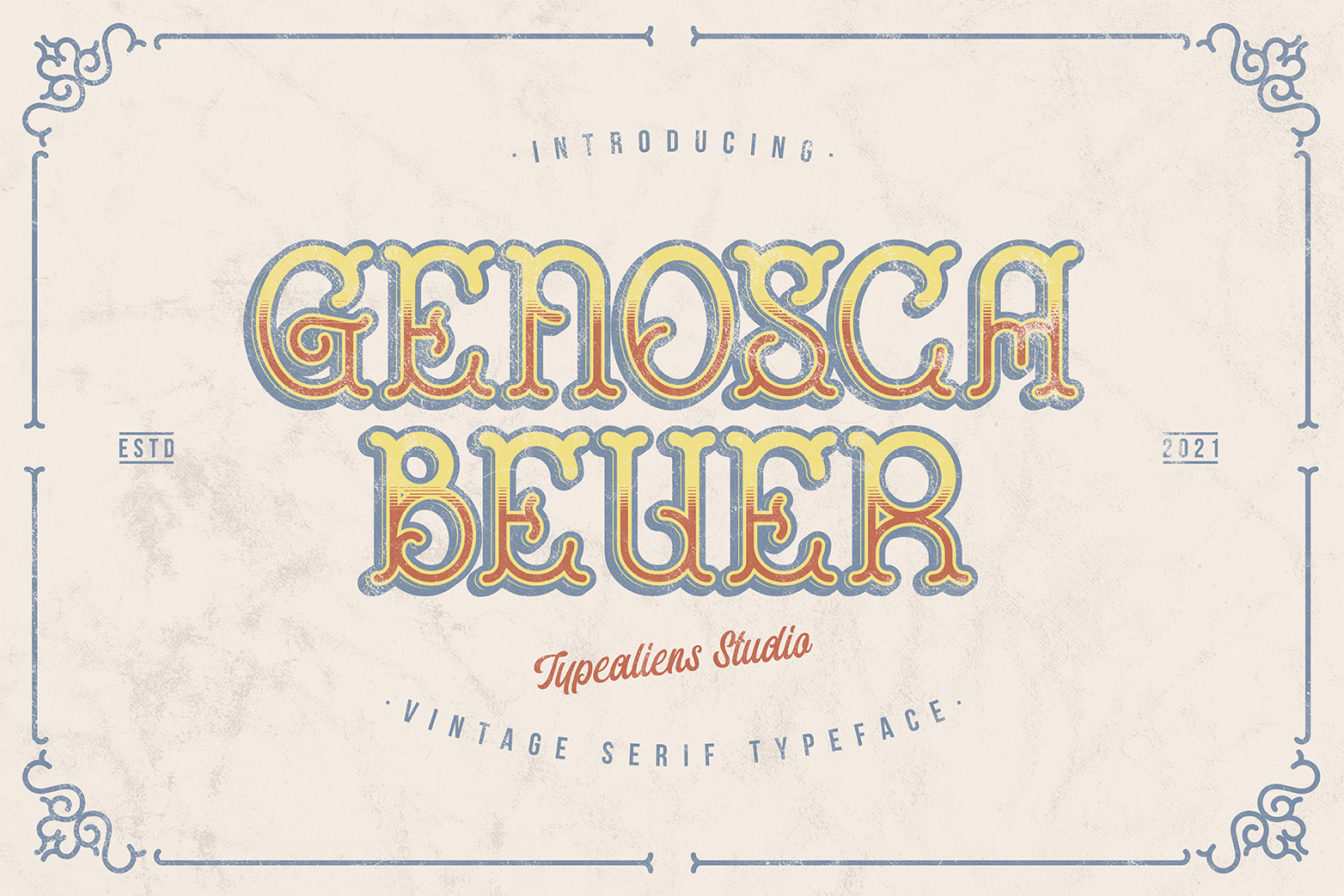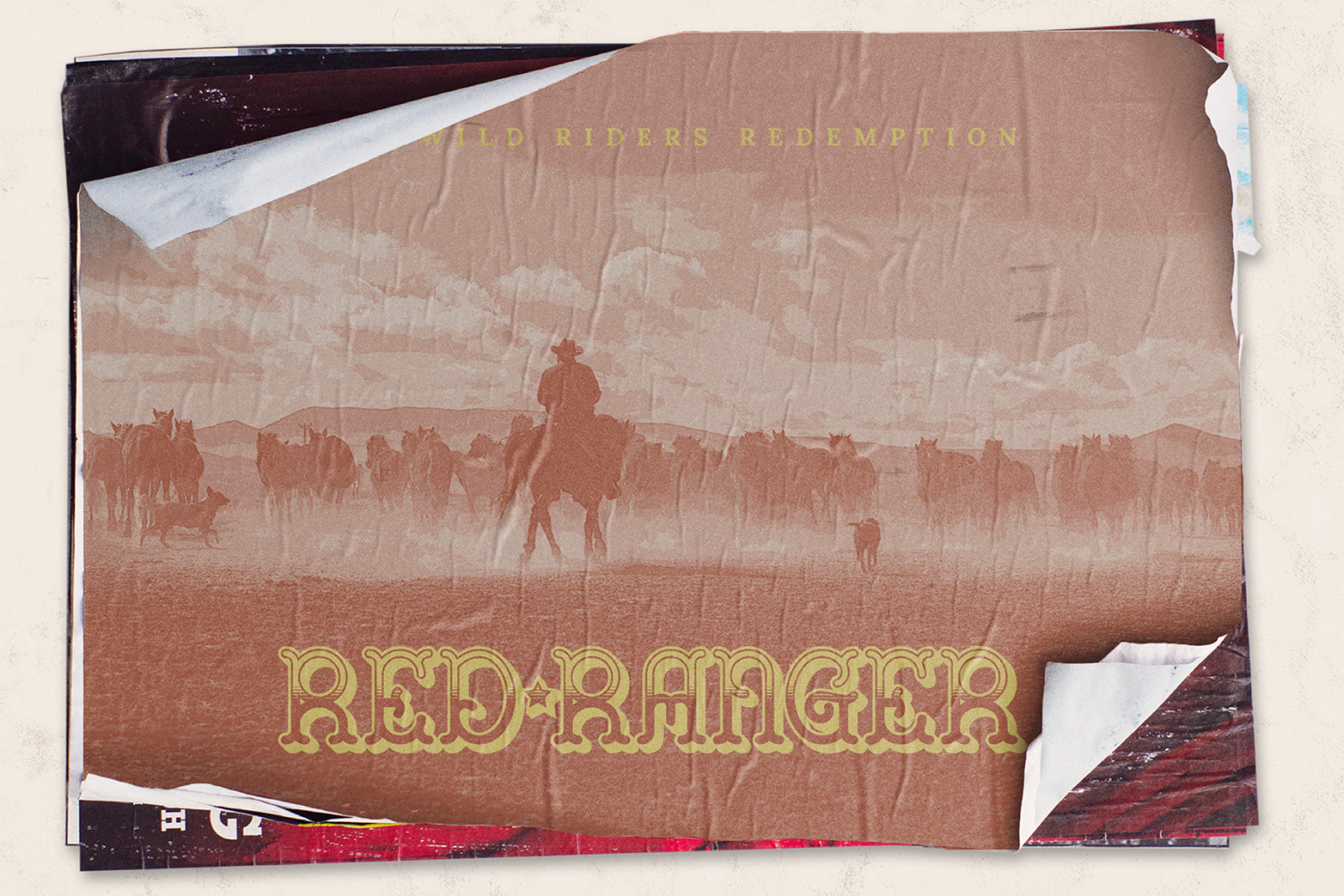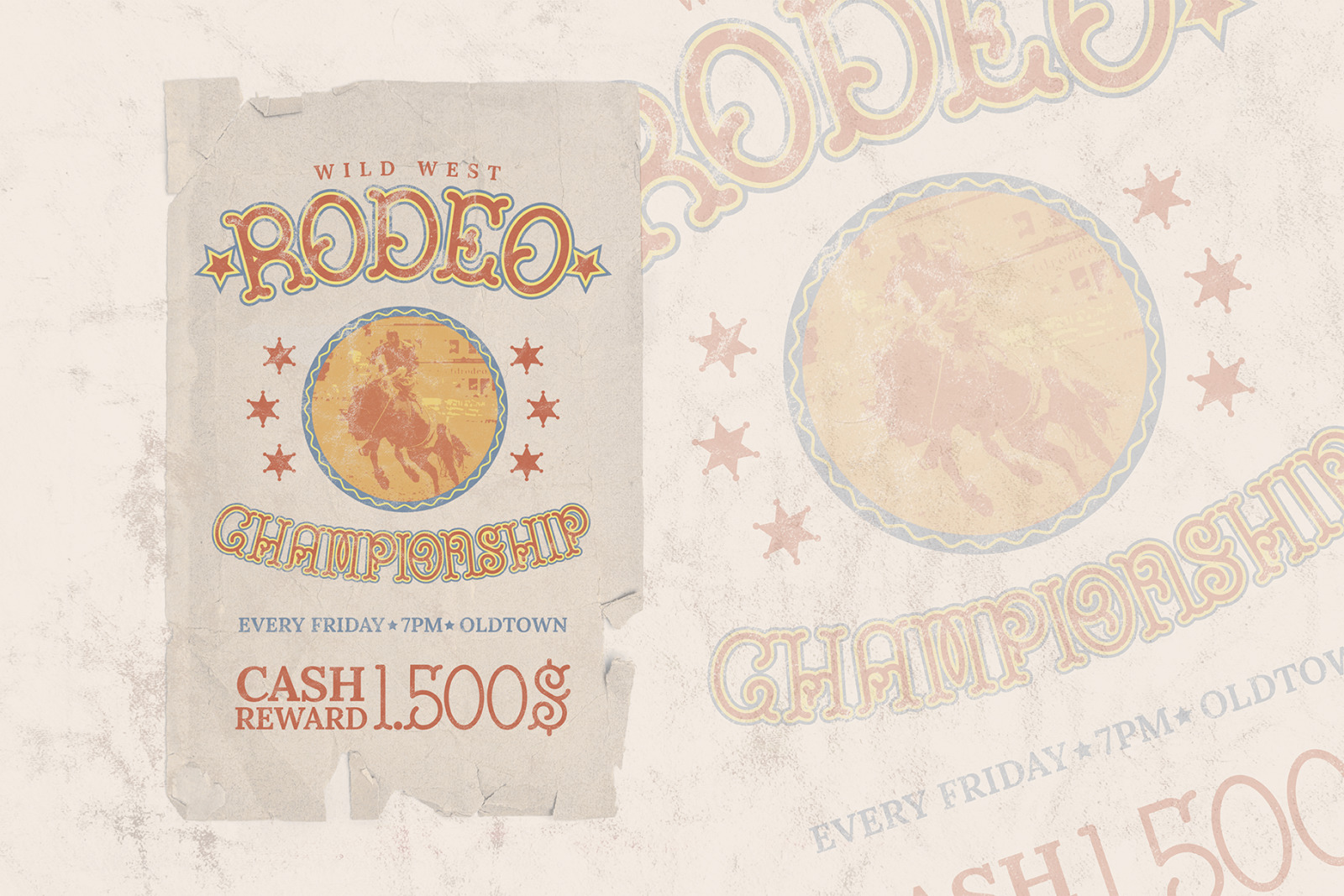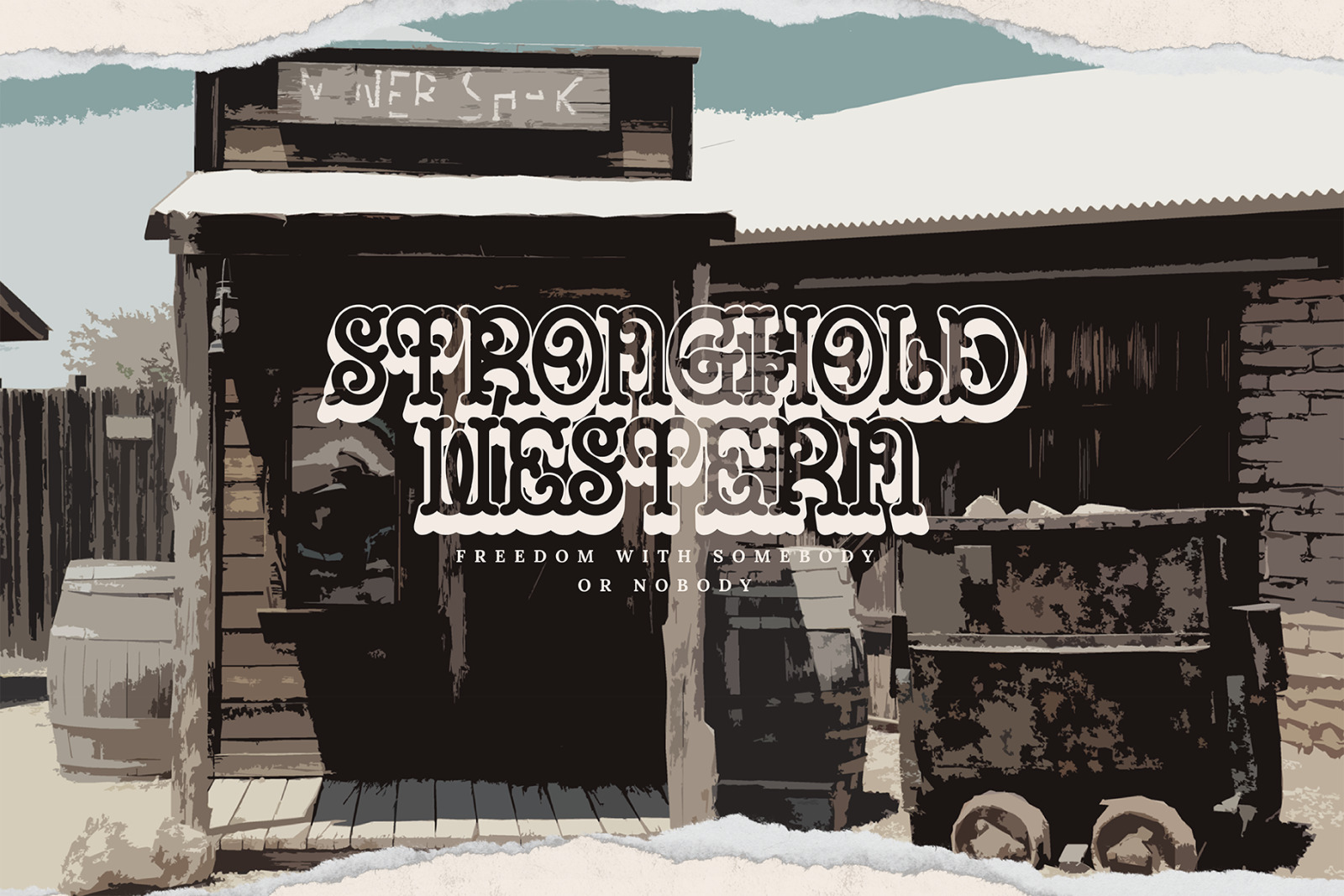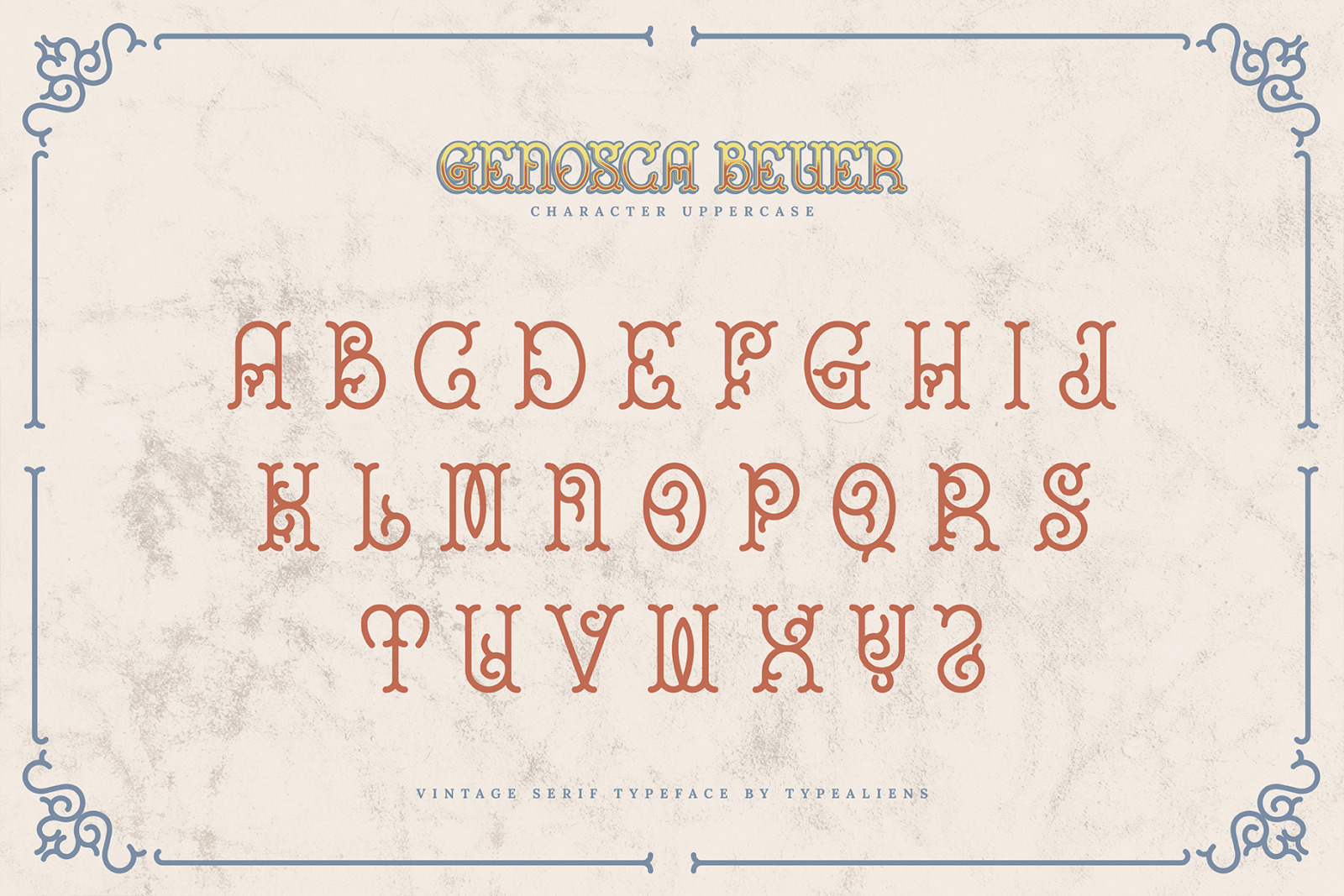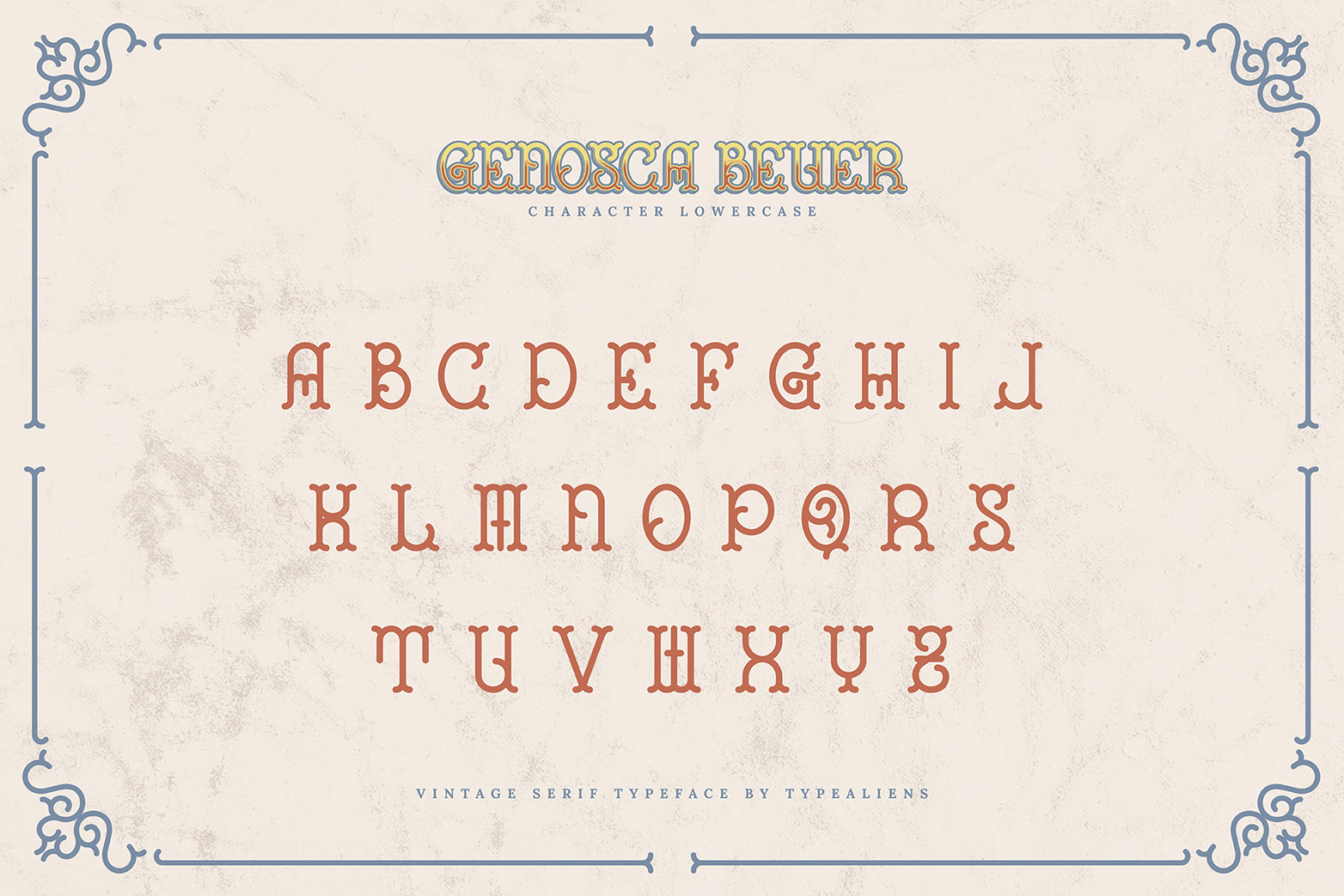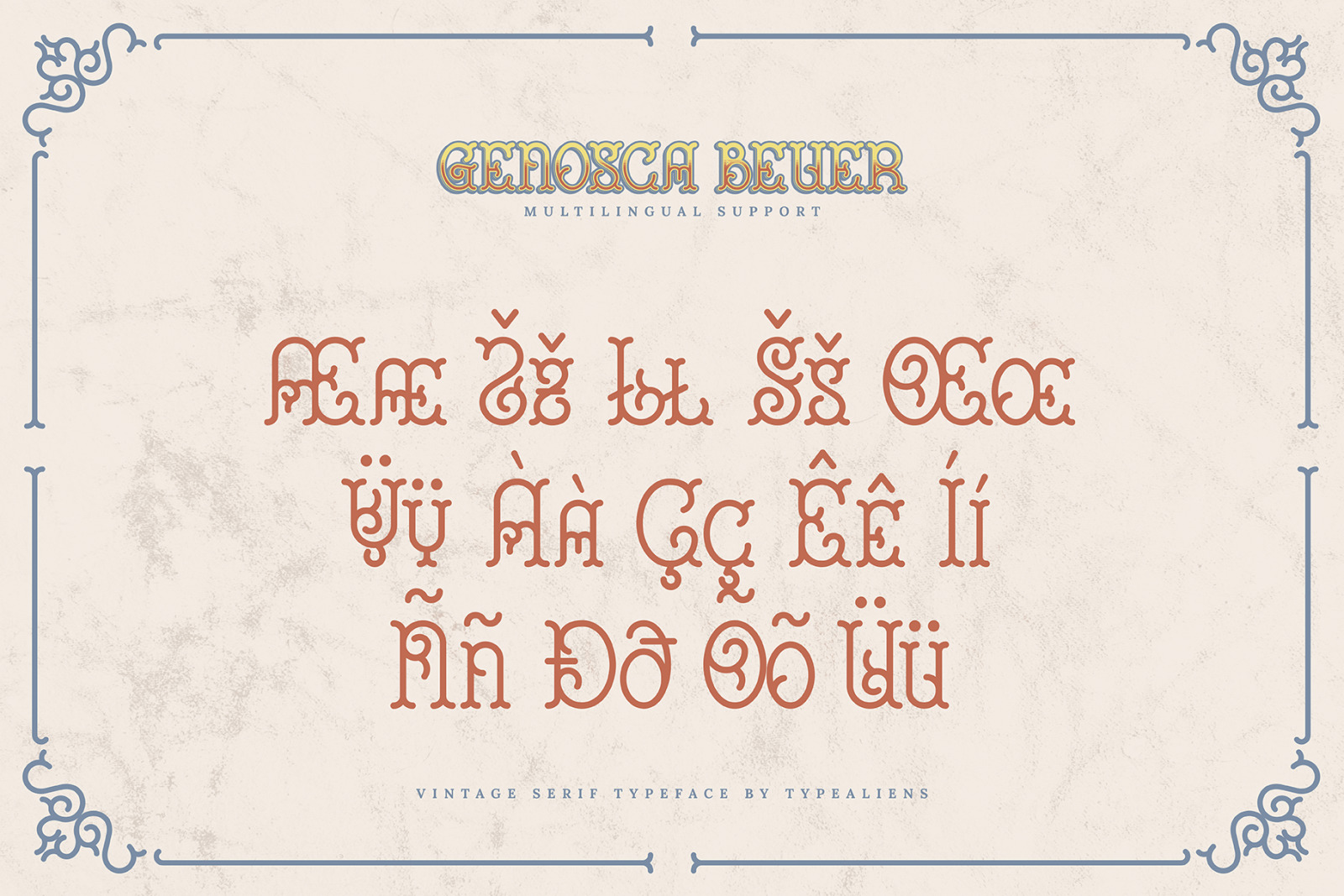
Genosca Beuer Font
GENOSCA BEUER is a vintage font based on serif fonts. With the All caps type, Genosca Beuer also uses a monoline stroke style.
It is suitable for retro designs, for liquor label designs, beer label designs, or as logo designs, logotypes and headlines on poster designs will also be very interesting and unique.